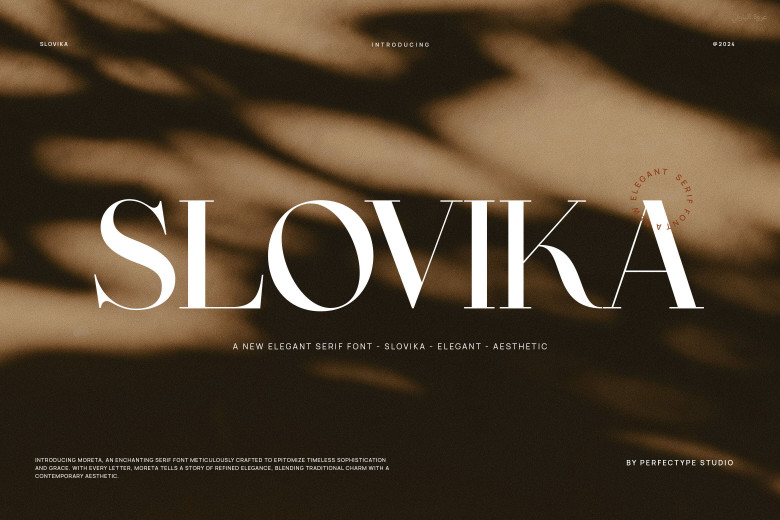
Slovika Font
Slovika is a stylish serif font designed to exude modern sophistication. Boasting clean lines and proportions that balance perfectly together and delicate features for a touch of sophisticated flair to any design task – be it branding and editorial layouts to elegant packages and invitations.
Slovika Serif Font